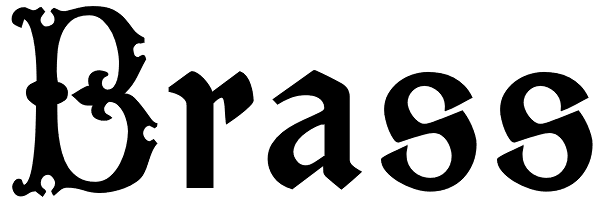
Brass
The Brass Family has a lineage that extends into English history. About five hundred years ago a devout, but anonymous Englishman gave glory to the God he worshipped by designing the capital letters and decorations of these two fonts. Originally...
Brass
Brass Too